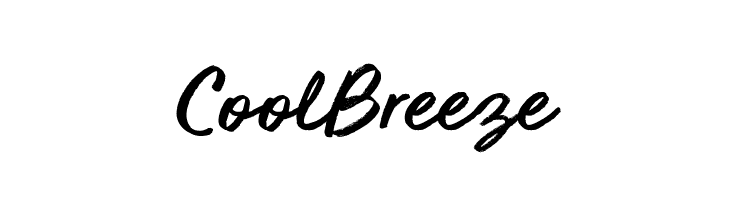
A playful, handwritten font with tall, slender letters and a whimsical style.
A bold, energetic handwritten font with fluid strokes and a lively appearance.
A bold, brushstroke-style font with a dynamic and textured appearance.
A bold, distressed font with a playful and vintage feel.
A playful, snow-capped font with bold, rounded characters perfect for winter themes.
A bold, three-dimensional font with a vintage comic book style.
A playful, bold, and hand-drawn style font with a dynamic and informal appearance.
A playful, bold outline font with a hand-drawn appearance.